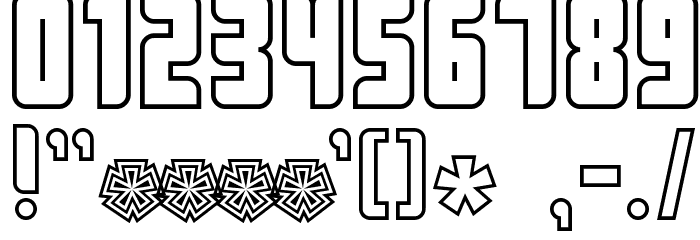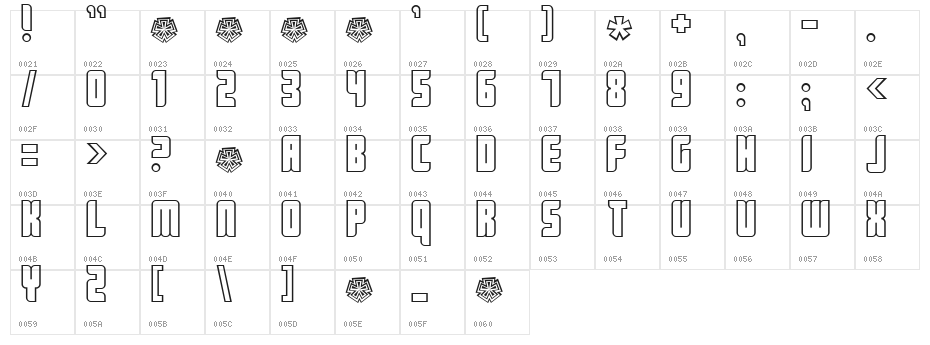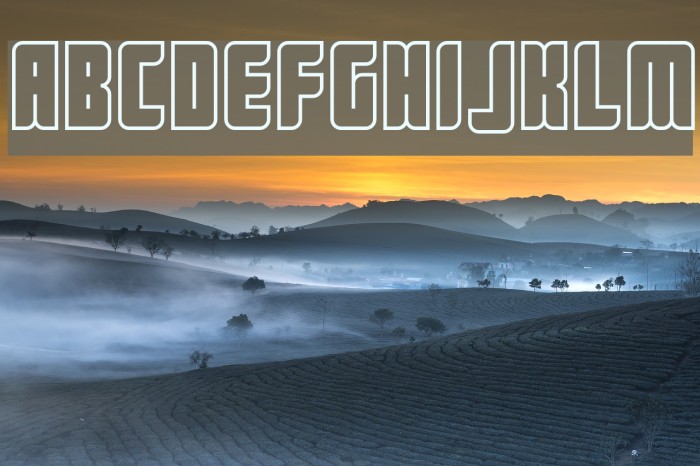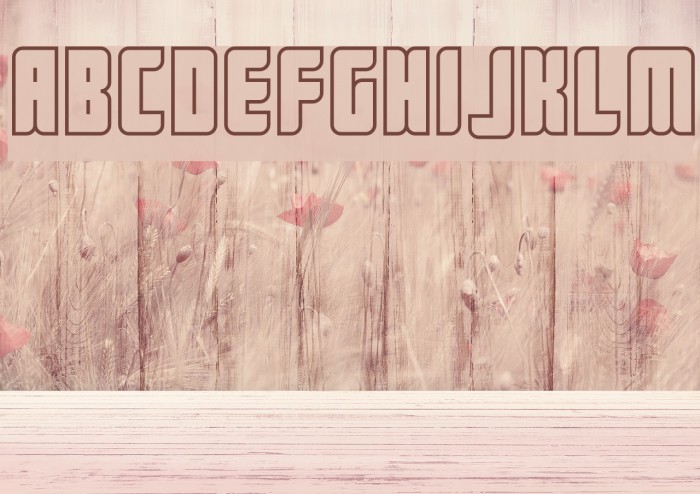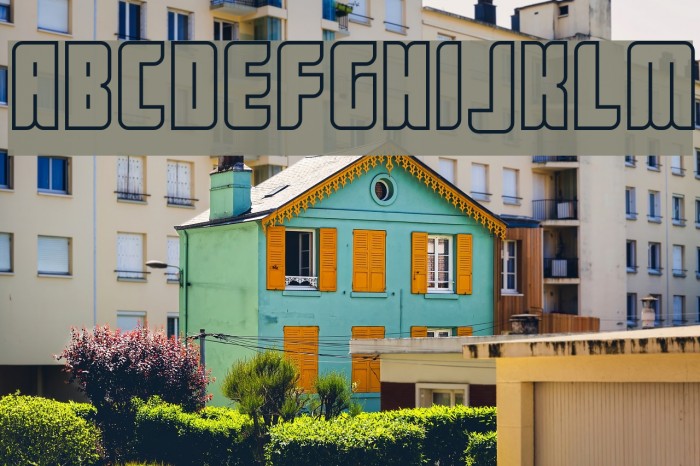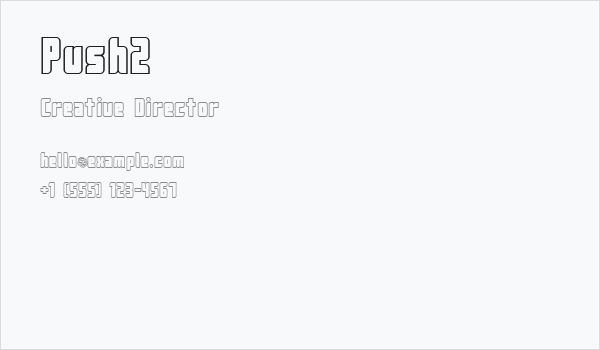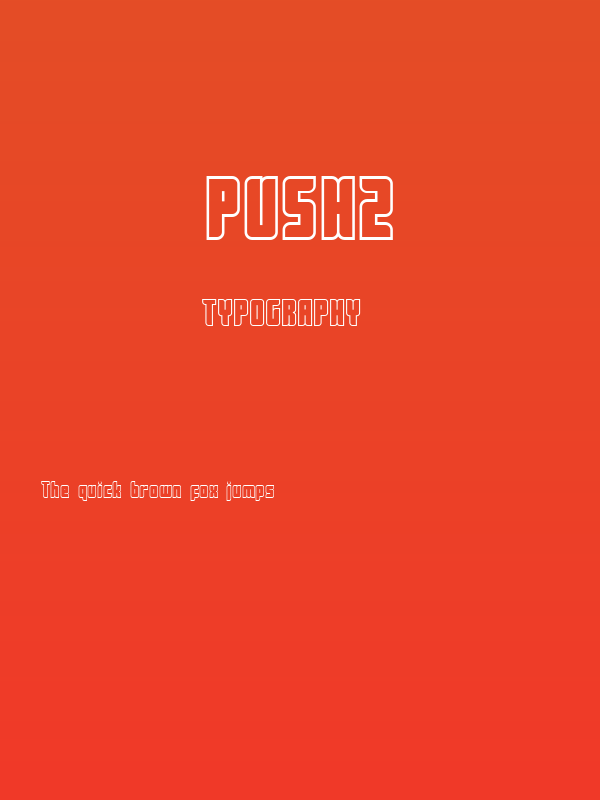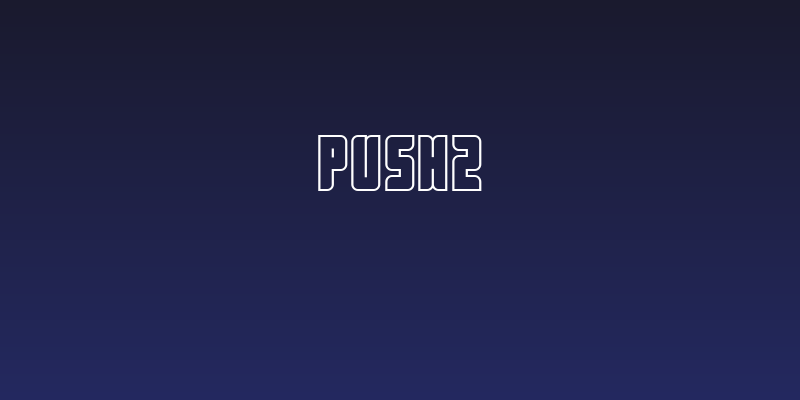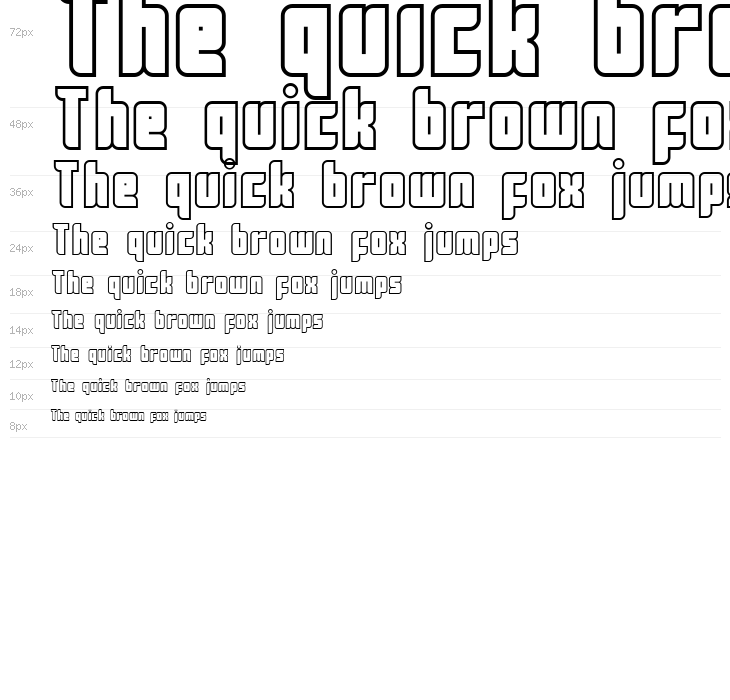
Push2 Font
Push2 Description
This font features a bold, geometric design with a distinct outline style. Each character is crafted with a uniform thickness, creating a cohesive and structured appearance. The uppercase and lowercase letters maintain a consistent height, contributing to a balanced and harmonious look. The numerals and special characters follow the same design principles, ensuring a unified aesthetic across all elements. The font's unique outline gives it a modern and futuristic feel, making it stand out in any design project.
| Proposed Projects | Ideal for branding, posters, headlines, and any project requiring a standout, modern typeface. |